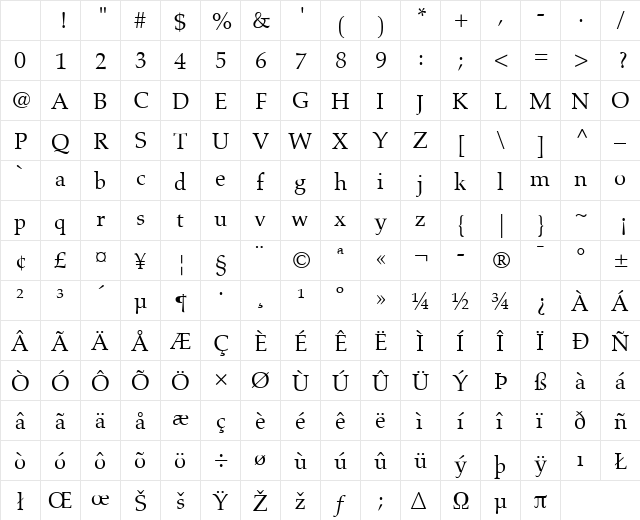
Aldus LT Roman Regular
Design Context for Aldus LT Roman
Aldus LT Roman is a composed and adaptable typeface that performs quietly and consistently across a wide range of design contexts. Its slender proportions lend an understated elegance to any composition.
Pro Tip: Use Aldus LT Roman in both headline and body roles to test its range before committing to a single application.